Mutilate your fonts with this amazing browser app
EnFont Terrible lets you remix your fonts in seconds.
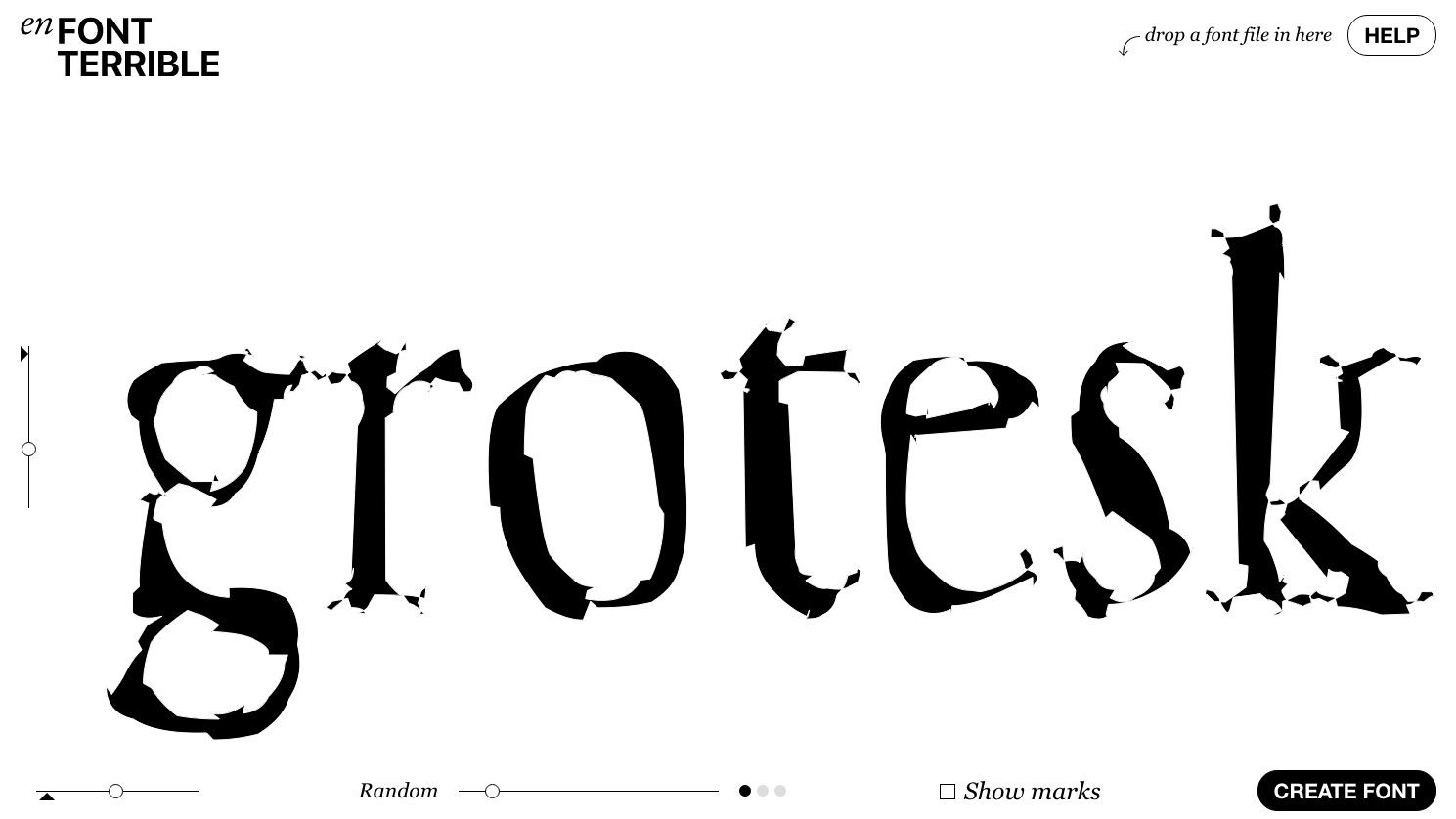
You can never have too many fonts, we've found, and just to complicate matters we've also found a fantastic new site that makes it absurdly easy to mutilate your existing type, turn it into whole new pieces of typographical joy and even create stunning kinetic typography in a matter of seconds.
It's called EnFont Terrible, which is by far the best pun you're going to hear this week, and it's the work of Spanish designer Javier Arce. He claims that he doesn't really know about kerning or any of that complicated typography stuff, but decided to make his own type generation site anyway.
Hey, are you into FONTS? Do you know what KERNING or that other word that typographers use all the time mean? Well, I don't… but that didn't stop me from creating this website that uses your browser to generate weird OpenType fonts: https://t.co/hZxV1bkFvb pic.twitter.com/oMKyhzkLbeMay 8, 2019
If you can't be bothered with typography tutorials, you'll be delighted to learn that EnFont Terrible is quite gloriously simple to use; either use the default fonts that come with it or upload your own, and by dragging a few sliders around you can warp and mutate it into something quite weird and wonderful in a matter of seconds, without having to know the first thing about typography.
Once you're happy with it, just hit the Create Font button in the bottom right-hand corner and you'll instantly save your mutant creation in OpenType format.
As a serious typographic tool it probably leaves a little to be desired, but as a fun way of mucking about with fonts it's very hard to beat, and with the right input fonts and a bit of experimentation you could quite easily grow a massively expanded font collection over the course of an afternoon.